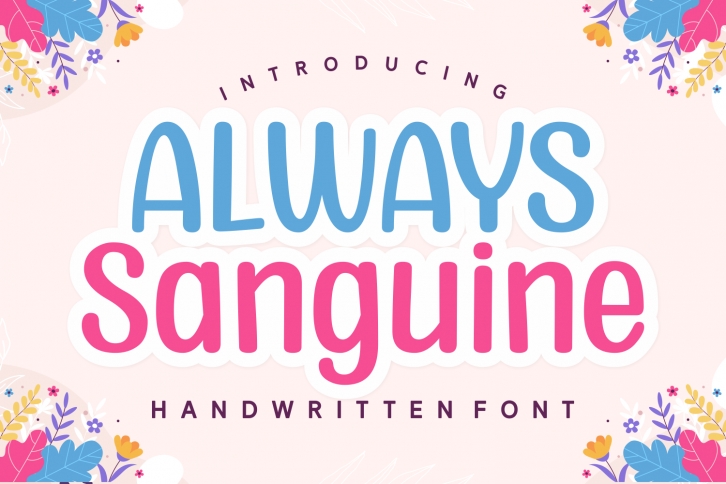
Always Sanguine is a cute and natural handwritten font. Warm, romantic and jolly, this font will turn each of your project ideas into real works of art. Have fun with this beautiful font and explore its endless variations.